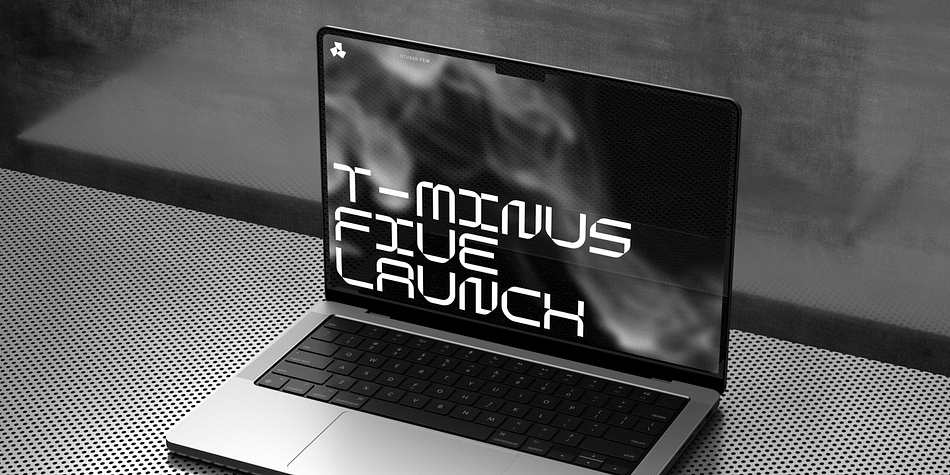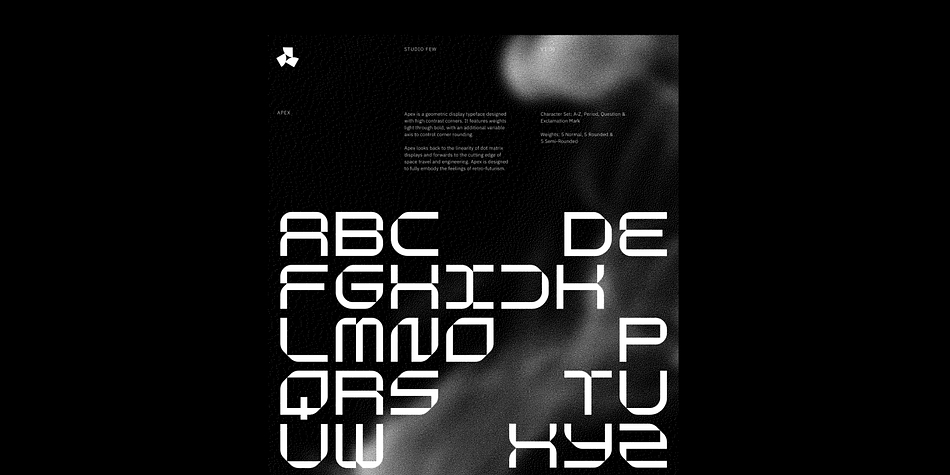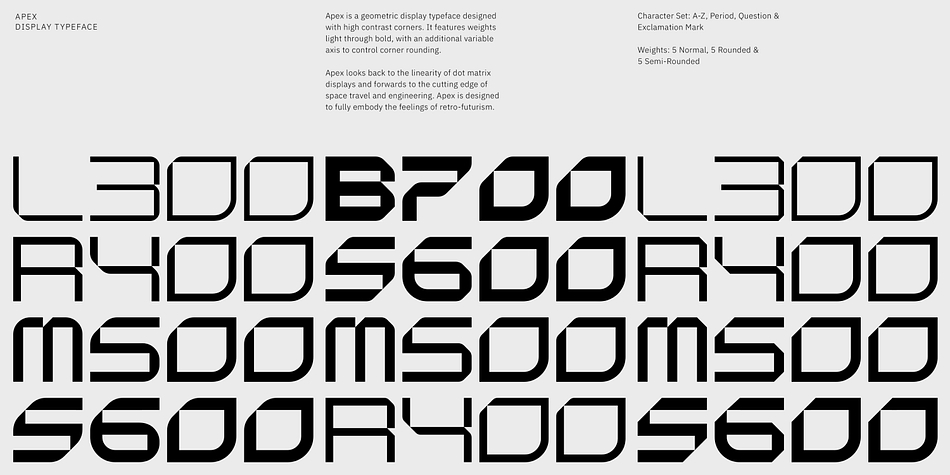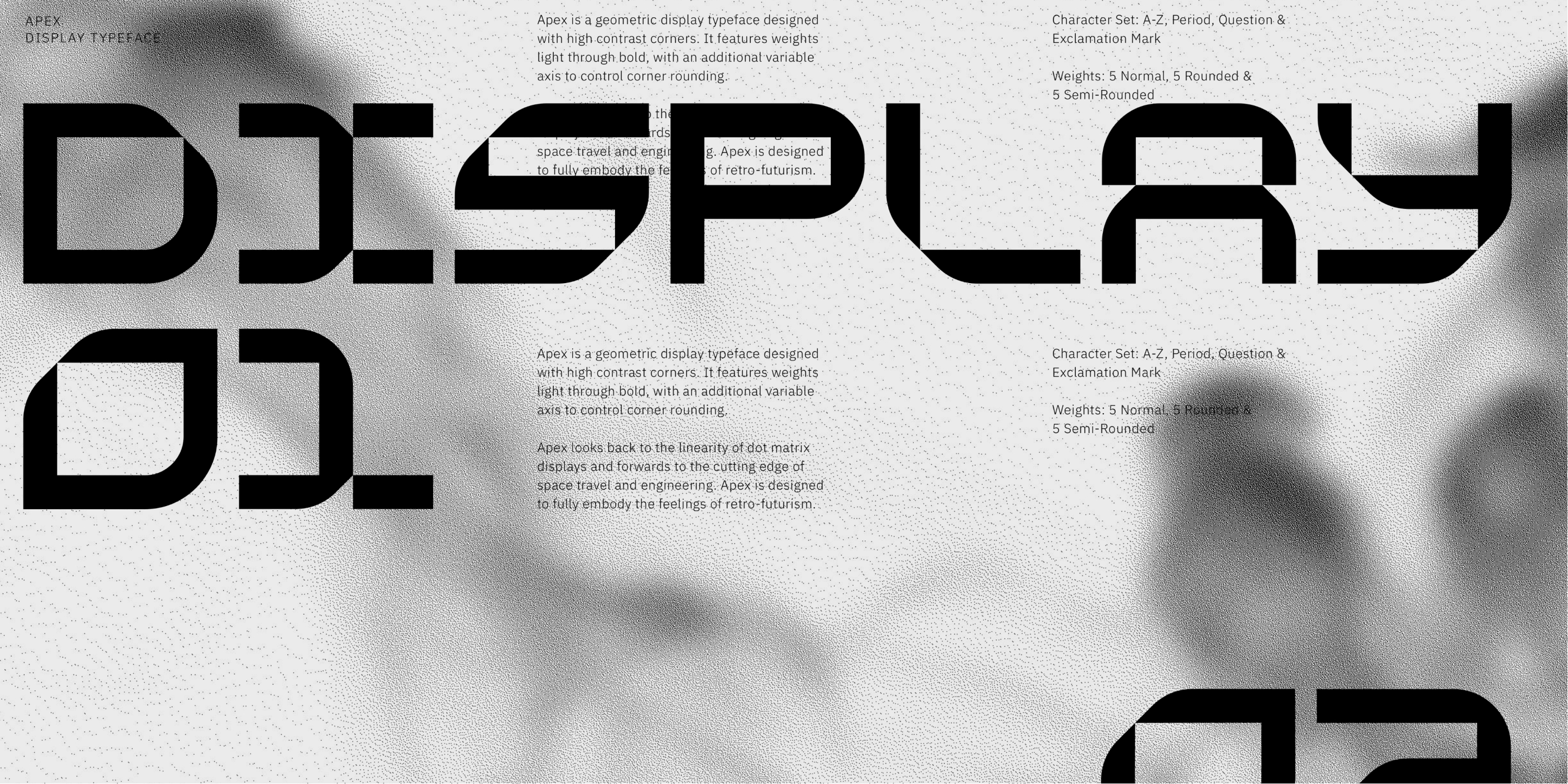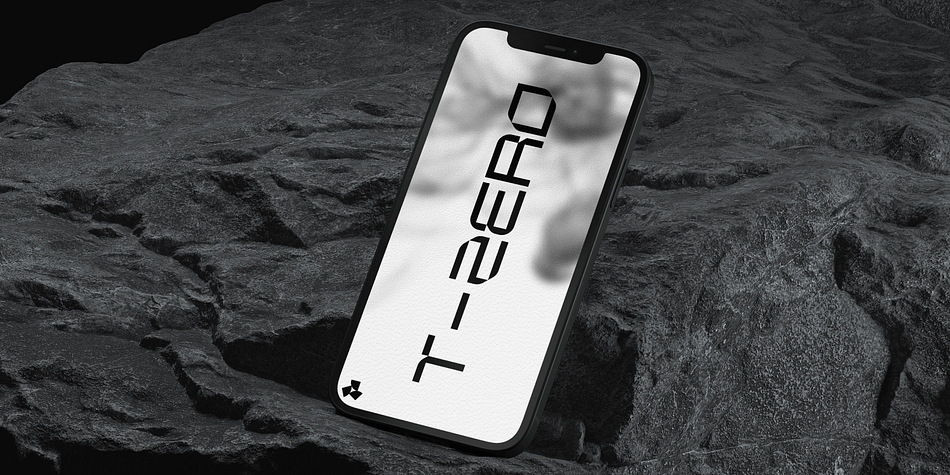
APEX
Apex is a display sans and pixel font family. This typeface has sixteen styles and was published by Studio Few.
Apex is a geometric display typeface designed with high contrast corners. It features weights light through bold, with an additional variable axis to control corner rounding.
Apex looks back to the linearity of dot matrix displays and forwards to the cutting edge of space travel and engineering. Apex is designed to fully embody the feelings of retro-futurism.
Character Set: A-Z, Period, Exclamation & Question Mark
Weights: 5 Normal, 5 Rounded, 5 Semi-Rounded